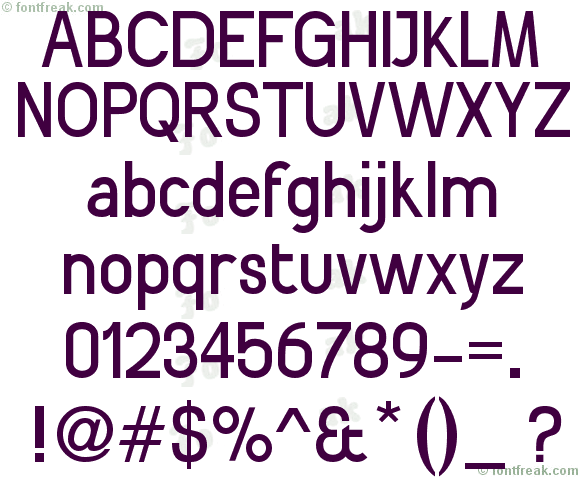
Patinio Neue
About Patinio Neue
Patinio Neue by Factor Vector is a modern sans-serif typeface that embodies a sleek and contemporary aesthetic. Characterized by its clean lines and balanced proportions, this font features moderate stroke weights and a harmonious contrast that enhances legibility. The spacing between characters is thoughtfully designed, allowing for optimal readability in both large and small formats. With its minimalist approach, Patinio Neue stands out with subtle decorative elements that add a touch of sophistication without overwhelming the viewer.
This versatile font is perfect for a range of applications, making it an excellent choice for graphic designers and content creators alike. It shines in professional settings, such as corporate branding, where clarity and modernity are paramount. Additionally, Patinio Neue is ideal for creating striking wedding invitations that convey elegance and style. Its clean lines also make it suitable for movie posters, where it can effectively capture attention while maintaining readability. For restaurant menus, the font's clarity ensures that patrons can easily navigate offerings, enhancing the dining experience.